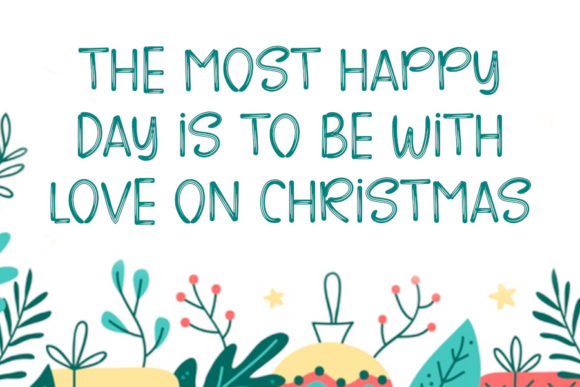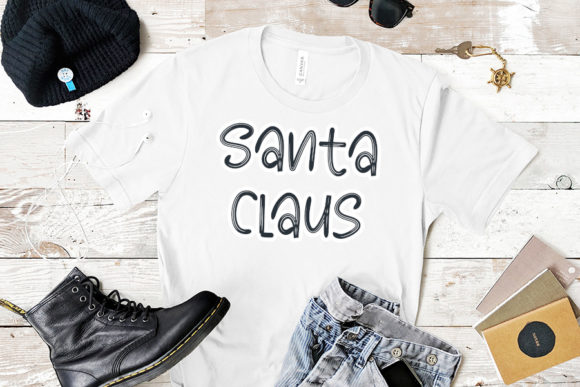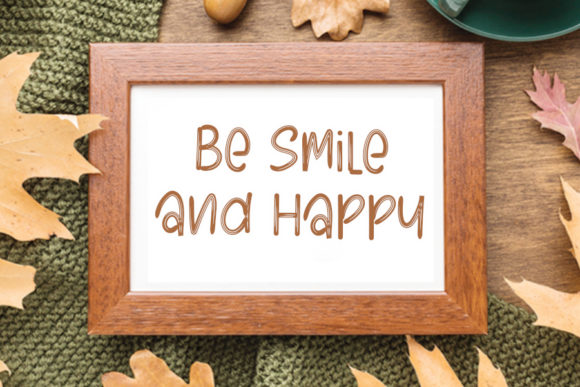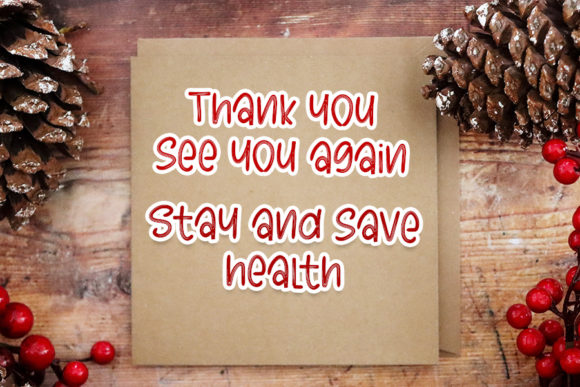
Farmhouse Christmas Font
About Farmhouse Christmas Font
Farmhouse Christmas is a simple brushed handwritten font. Due to its simple nature, it can effortlessly become your main font for each of your festive designs or Christmas letters.